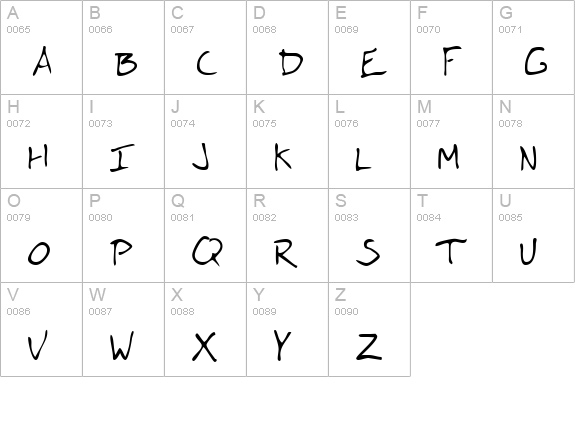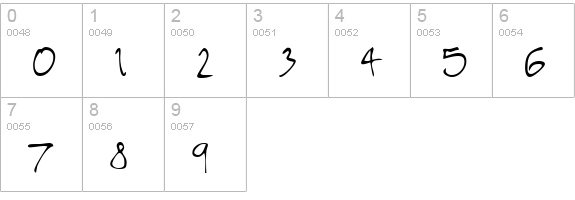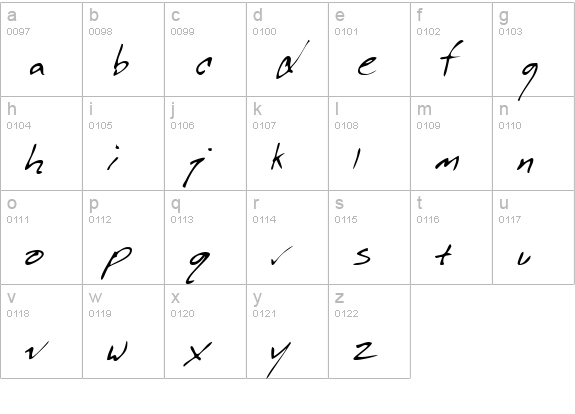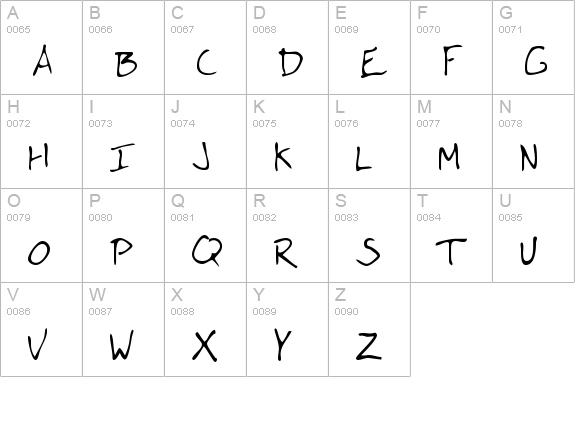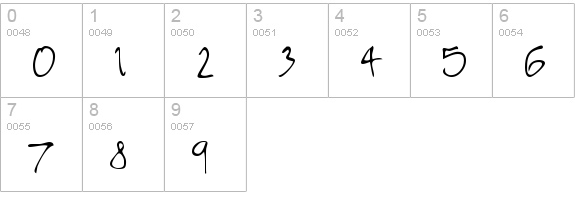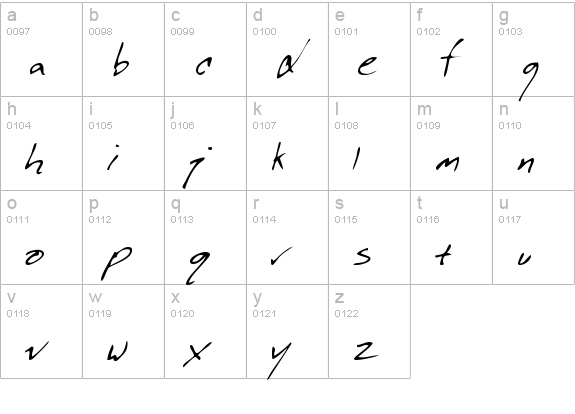
DonaldsHand Regular Font Details
DonaldsHand Regular is the standard, neutral variant in the DonaldsHand typeface family \xE2\x80\x94 well suited to general body text, paragraphs, and standard typographic work.
DonaldsHand Regular font is a charming and playful typeface that adds a touch of whimsy to any design project. With its handwritten feel and quirky details, this font is perfect for creating a friendly and approachable look. Whether you're designing greeting cards, invitations, or social media graphics, DonaldsHand Regular font will bring a unique flair to your work. Best of all, DonaldsHand Regular font is available for free download at FontsMarket.com. This means you can easily access this delightful font and start using it in your projects right away. Don't miss out on the opportunity to add a fun and creative element to your designs with DonaldsHand Regular font. Download it now and let your imagination soar!